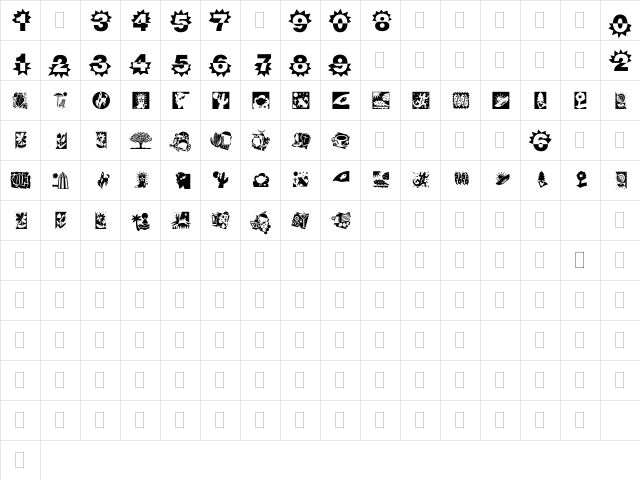
DF Naturals Regular
| Foundry | International Typeface Corporation |
| Designer | Hugh Whyte |
Design Context for DF Naturals Typeface
DF Naturals is a composed and adaptable typeface that performs quietly and consistently across a wide range of design contexts.